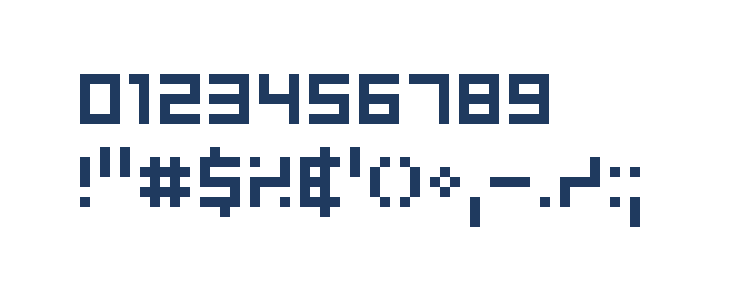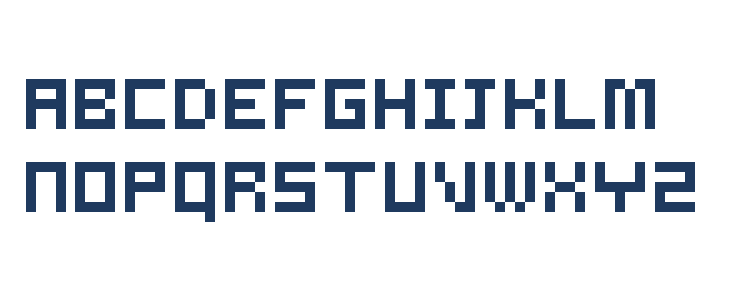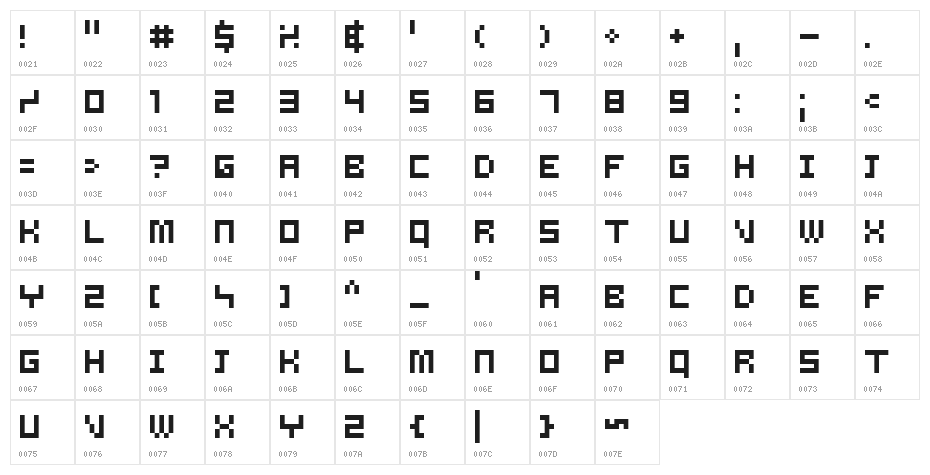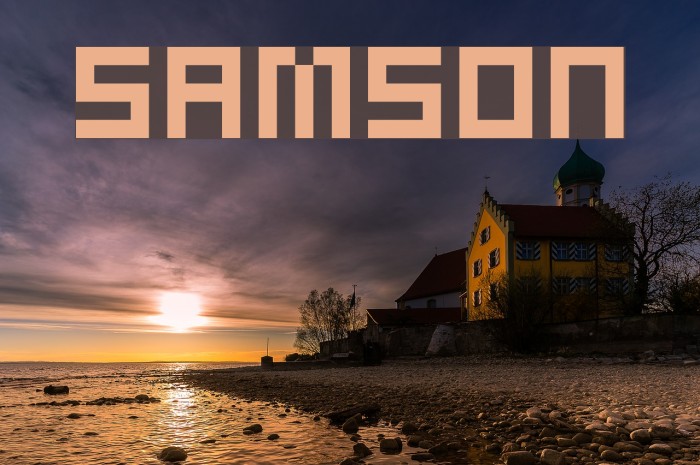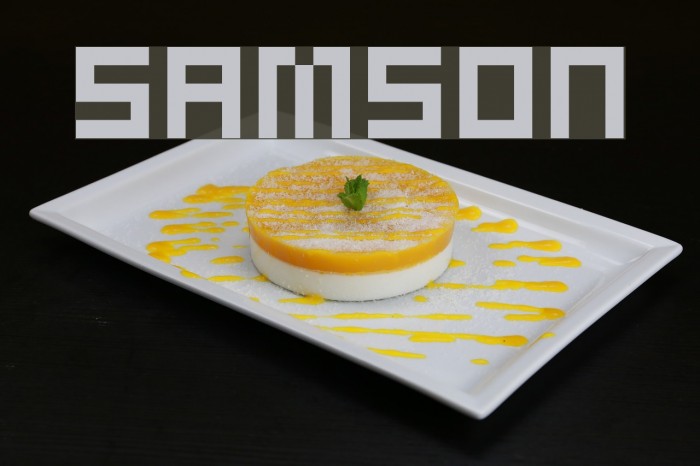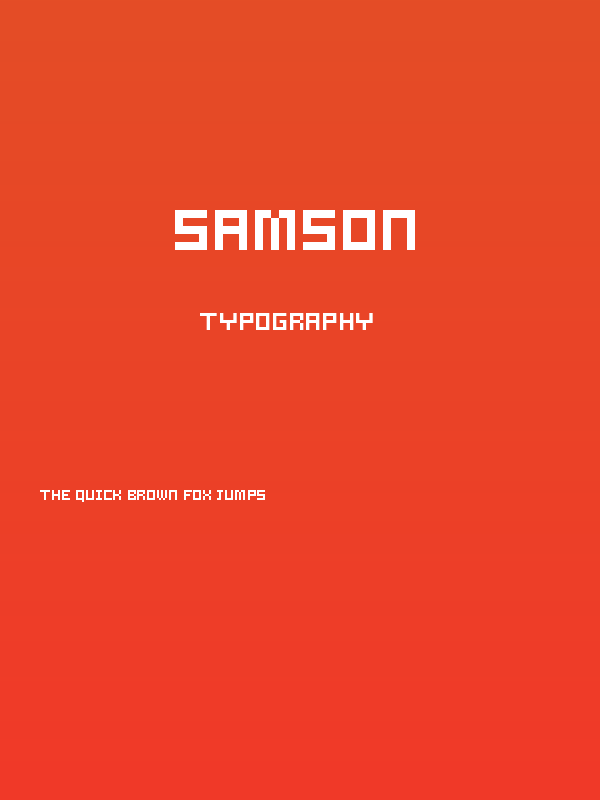
Samson Font
Samson Description
This font features a bold, geometric design with a pixelated, blocky appearance. Each character is constructed from uniform square shapes, giving it a digital and retro aesthetic reminiscent of early computer graphics or video games. The uppercase and lowercase letters maintain a consistent height, emphasizing the uniformity and modularity of the design. The numbers and special characters follow the same style, ensuring a cohesive look across all glyphs. The font's strong, angular lines and lack of curves contribute to its distinctive, futuristic feel.
| Overall Style | Retro, Futuristic |
| Use Case | Headlines, Logos, Digital Art |
| Proposed Projects | Ideal for video game design, tech-themed posters, digital art projects, and retro-style branding. |